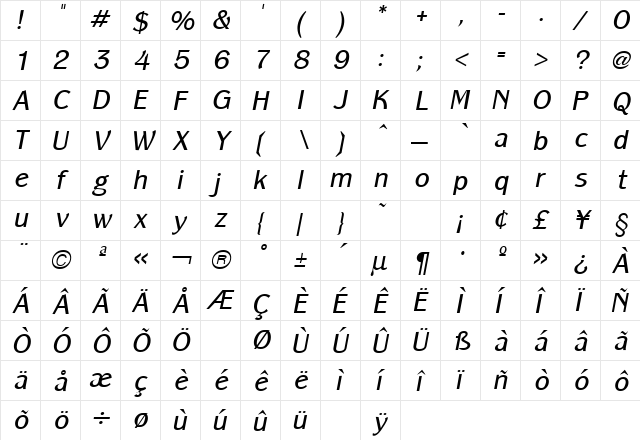
Panache Italic
Design Context for Panache Typeface
Panache offers clean, dependable letterforms without strong stylistic allegiance, making it a practical choice for designers who need flexibility. The slanted form adds forward momentum and visual energy.